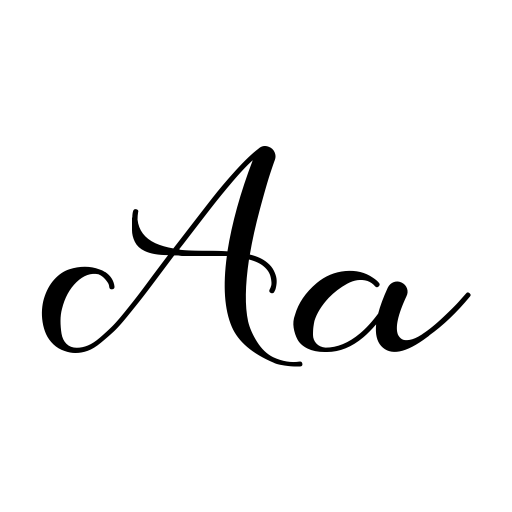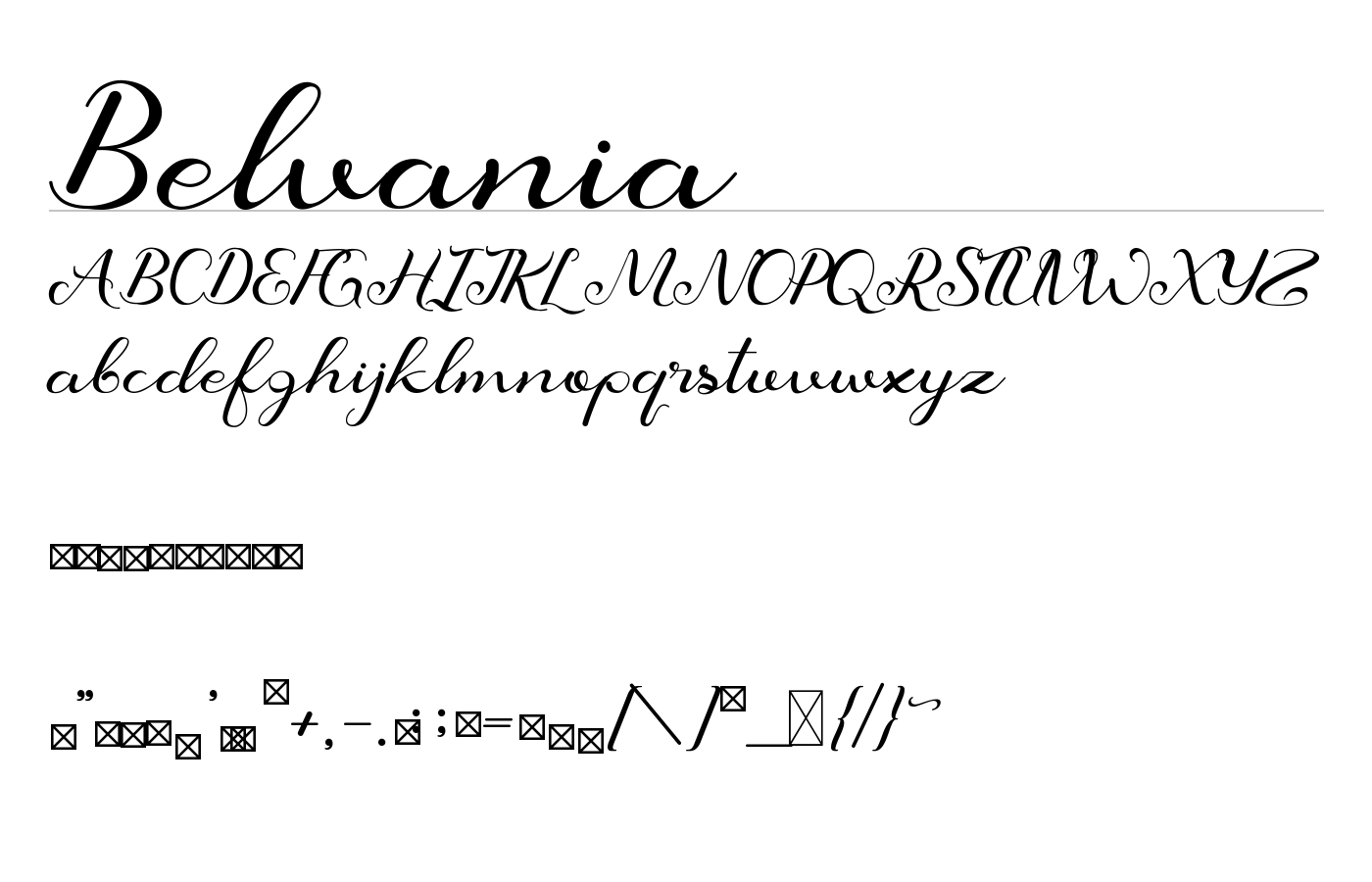
Belvania is an elegant script font with flowing, cursive letterforms that blend graceful thin strokes with subtle curves, giving it a sophisticated and refined look. It’s perfect for luxury branding, wedding invitations, and editorial use where a delicate, stylish touch is desired, conveying charm and femininity with its smooth, handwritten style.
Belvania Font
About Belvania Font
| Font family | Belvania Font |